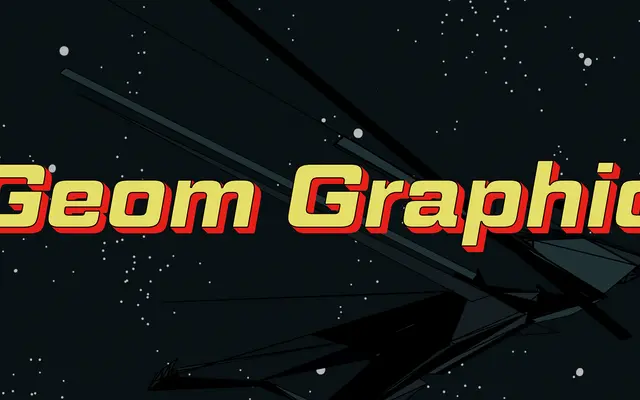
Geom Graphic specimen from Dharma Type
A square geometric sans drawn from the visual language of 1980s Japanese robot animation, with subtle rounding that softens its angular construction.
Built around squared geometry with gently rounded corners, this family sits closer to Eurostile territory but pushes further into angular, blocky forms reminiscent of mecha anime aesthetics. Four weights with matching italics give it enough range for logotypes, game interfaces and film titles. The retro-futurist character makes it well-suited to sci-fi themed projects where a cold geometric sans would feel too clinical.
A square geometric sans-serif with subtle rounded corners, explicitly compared to Eurostile but more angular; fits squarely in the geometric sans category with display characteristics.